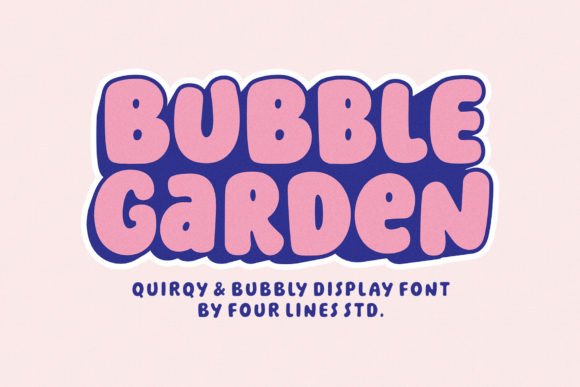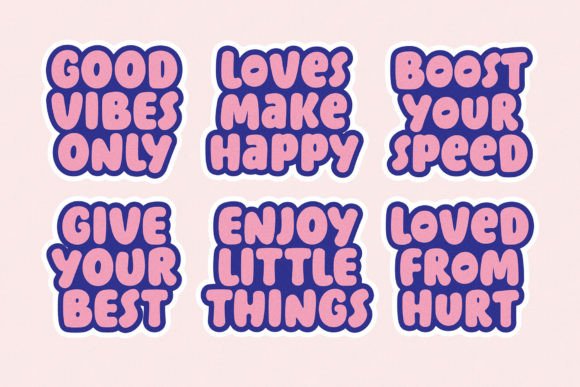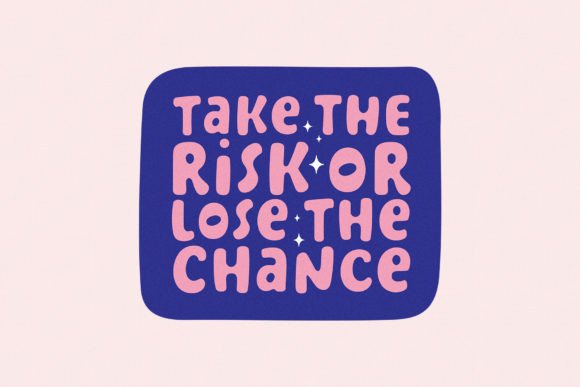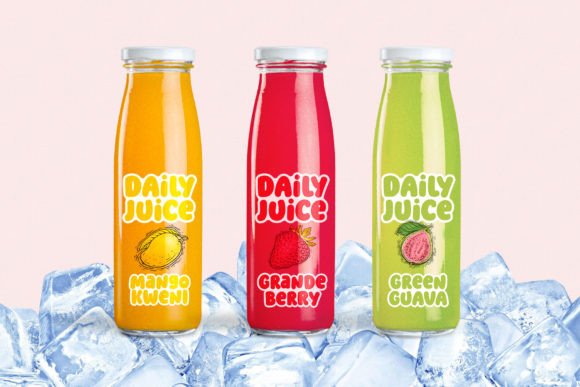
Bubble Garden Font: A Playful Display Font for Cute DIY Designs
About the Bubble Garden Font
Get ready to be inspired by Bubble Garden Font, a fresh and dynamic typeface for modern creators. Introducing “Bubble Garden” Font – Where Whimsy Meets Readability!
Bubbling with Charm: “Bubble Garden” captures the essence of joy and creativity. Its rounded, bubble-inspired letters are like a burst of laughter on your screen or paper. Whether it’s for party invitations, children’s books, social media content, posters, sticker, thubnail or anything that needs a dose of fun, this font has got you covered.
Bubble Garden’s playful, rounded forms make it ideal for headlines, short text blocks, logos, and packaging design where a friendly, approachable aesthetic is desired. It works particularly well for children’s products, branding for playful businesses (e.g., cafes, toy stores), and projects needing a lighthearted touch. However, its informal nature makes it unsuitable for body copy, lengthy paragraphs, or applications requiring high readability in small sizes, such as UI elements.
Pairing Bubble Garden with a clean sans-serif like Lato or Open Sans provides a strong contrast, grounding the whimsicality of the display font. For a more sophisticated feel, consider pairing it with a classic serif like Garamond or a slightly more geometric sans-serif like Montserrat. Avoid pairing it with other highly decorative or script fonts, as this could overwhelm the design.
Its core personality is undeniably cheerful and approachable, conveying a sense of youthful energy and optimism. The font’s friendly nature makes it a strong choice for brands aiming to project a fun, carefree image.
Bubble Garden Font Usage Examples
Bubble Garden Font Example